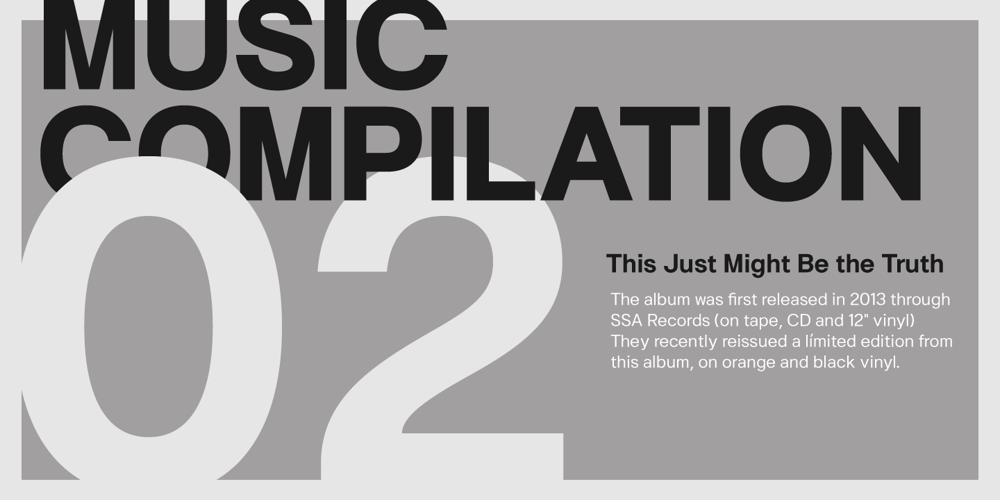
Hergon Grotesk
Hergon Grotesk font
Hergon Grotesk Font Family was designed by Thanarat Vachiruckul and published by Katatrad. Hergon Grotesk contains 18 styles and family package options. Straightforward tone resulting in a modernist, Hergon Grotesk is a family of modern sans-serif. This Typeface is characterized by Neo-Grotesque which gives it a strong character, perfectly suited for any visual communication application. The family has 10 fonts ranging from thin to extrabold with matching italics.